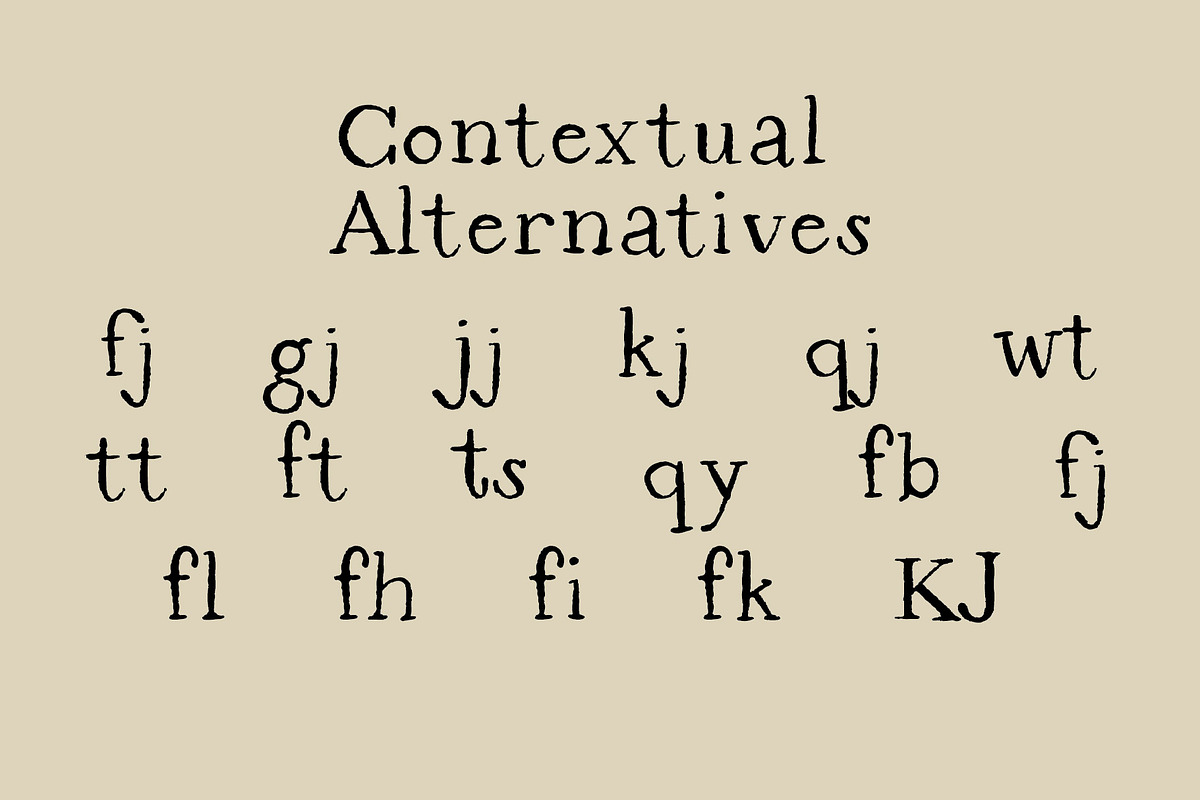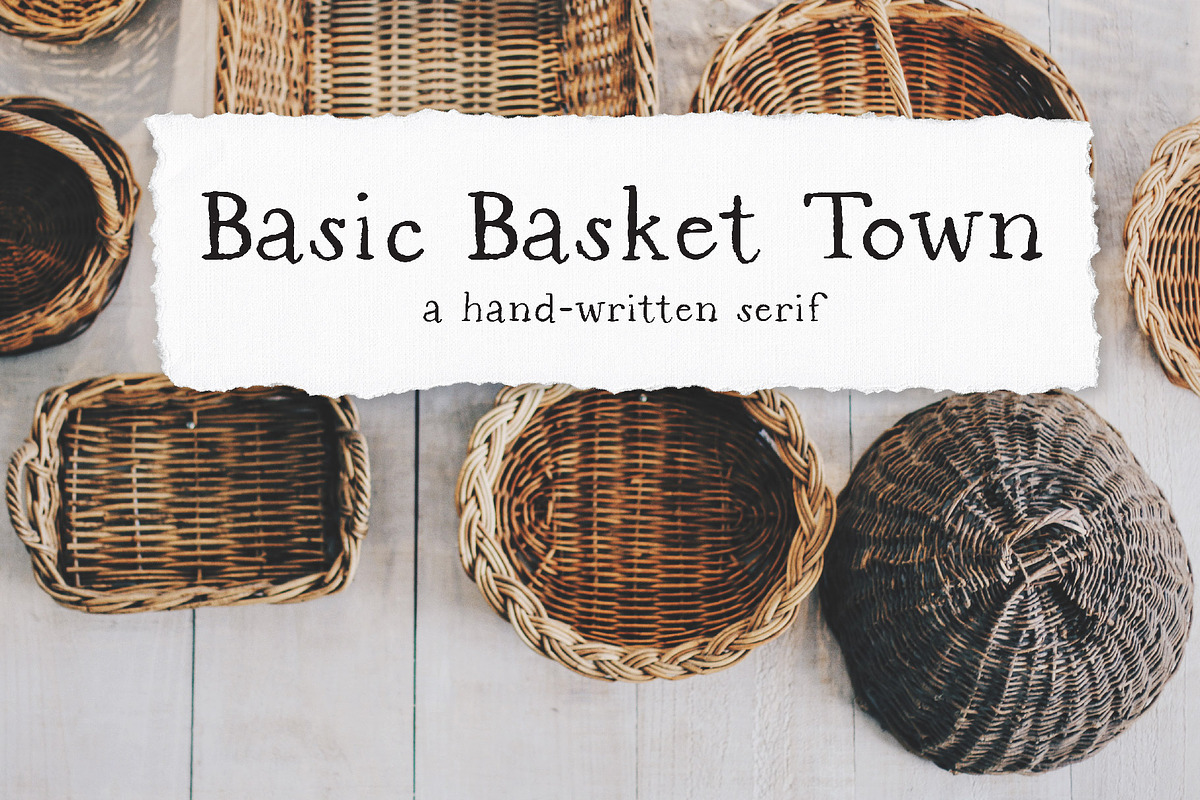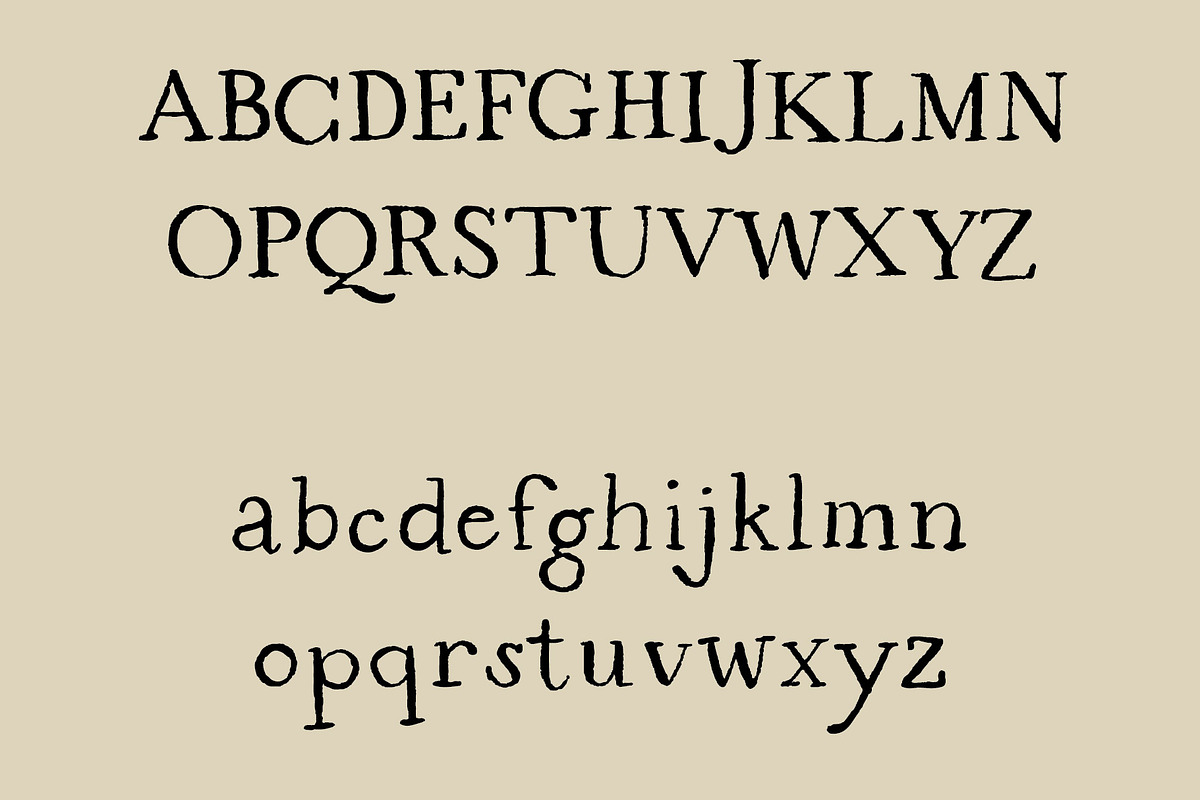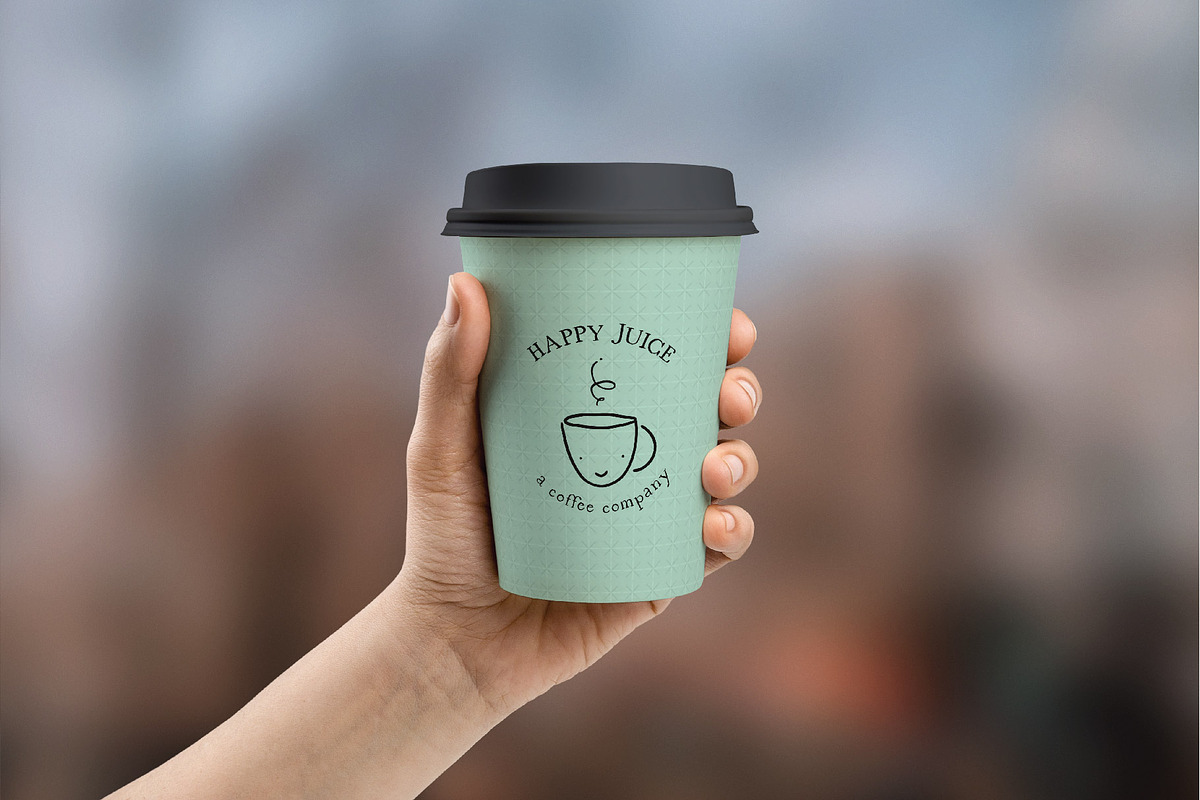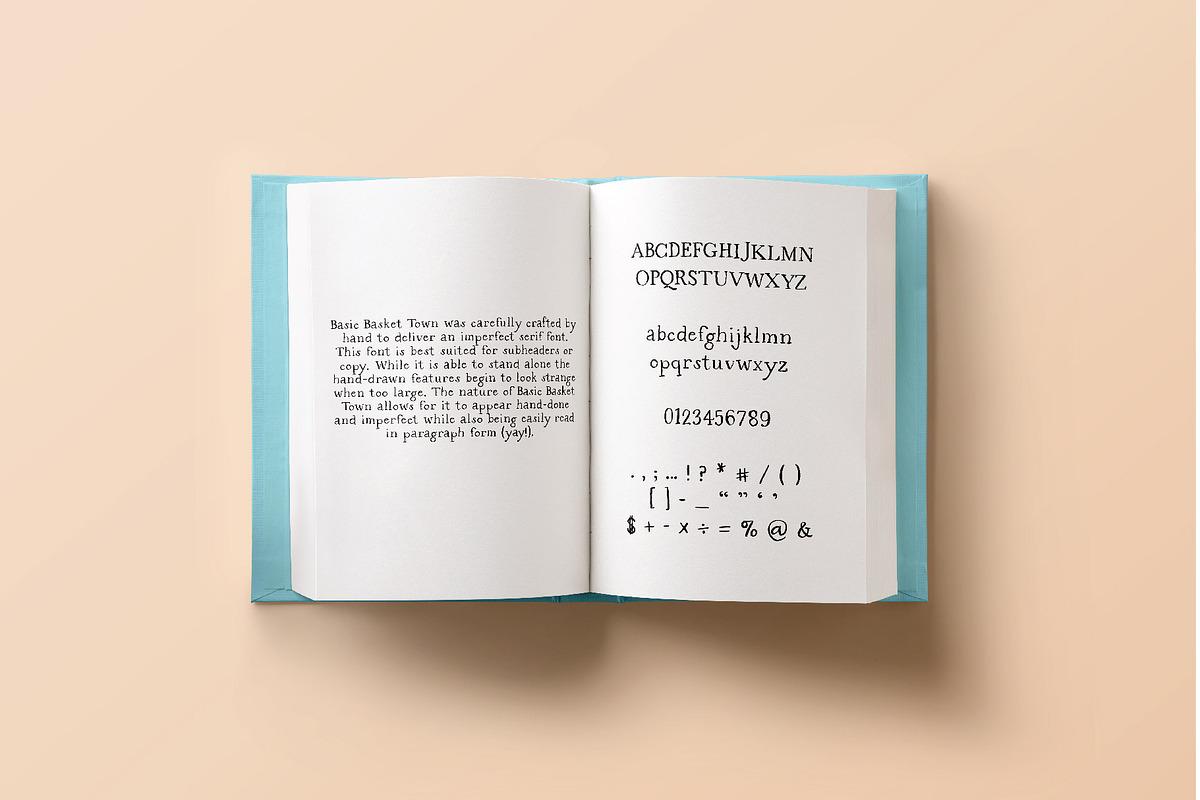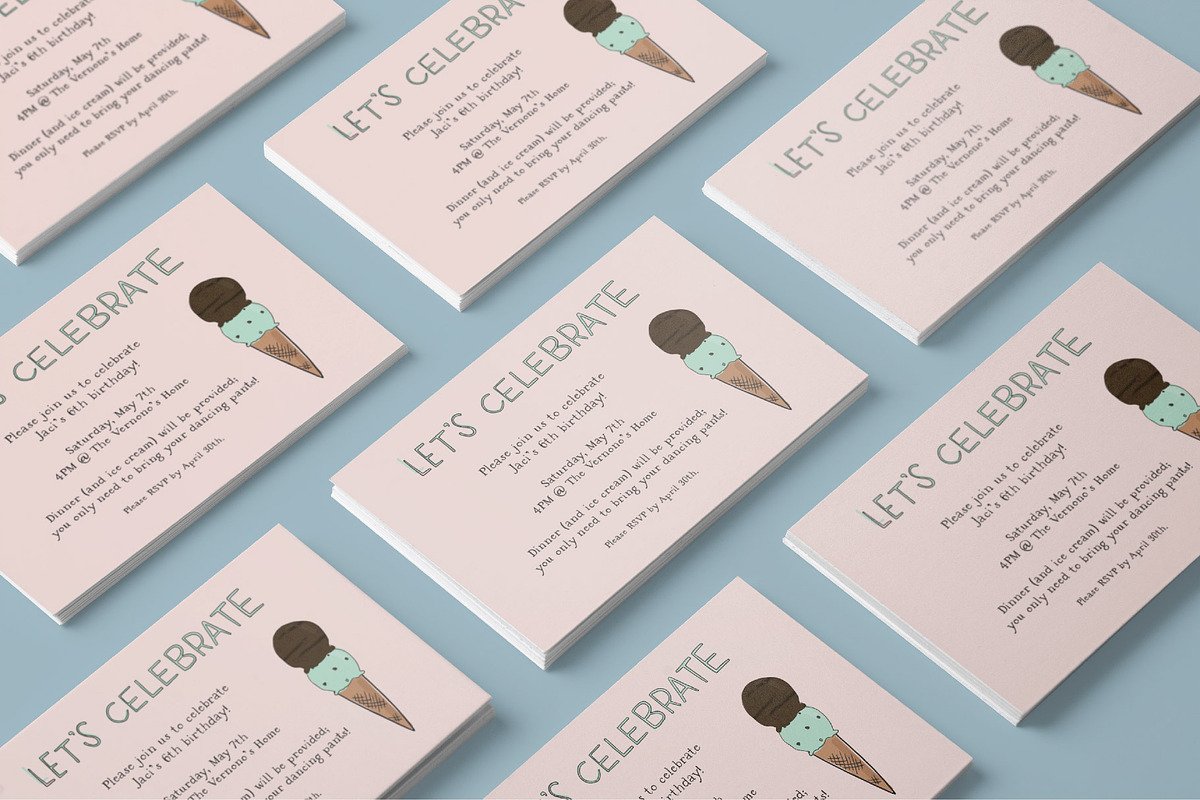
Basic Basket Town Font
Basic Basket Town was carefully crafted by hand to deliver an imperfect serif font. Because of the nature of the font it is best suited for subheaders and copy text.
Basic Basket Town is perfect for logos, t-shirt design, printed goods, or anywhere else you might see words.
This font has all standard Latin letters (upper and lower cases), numbers, basic symbols, and contextual alternatives for tricky letters.